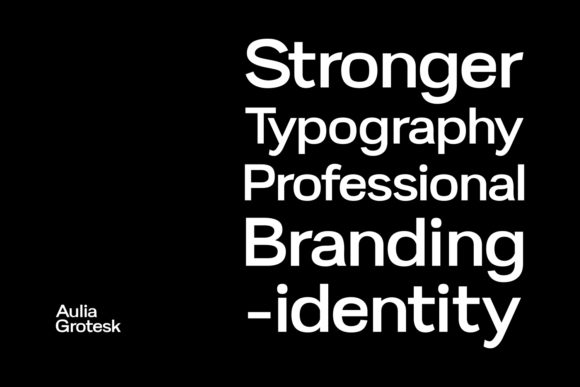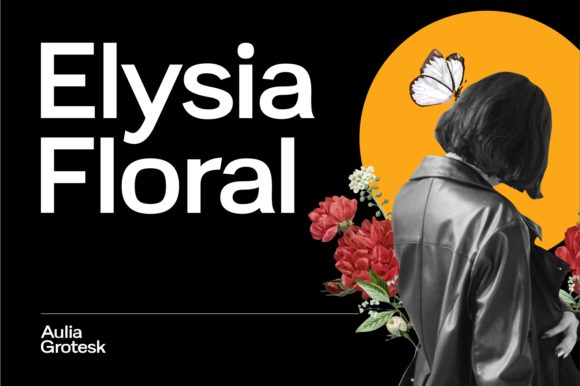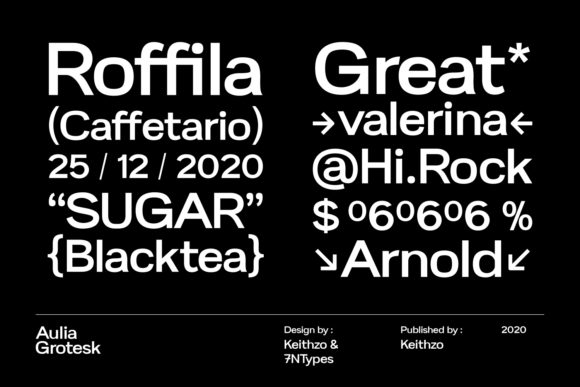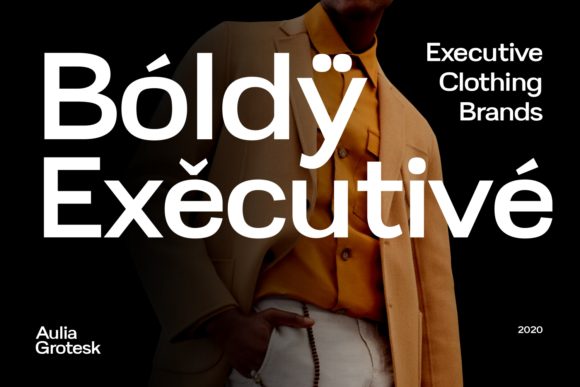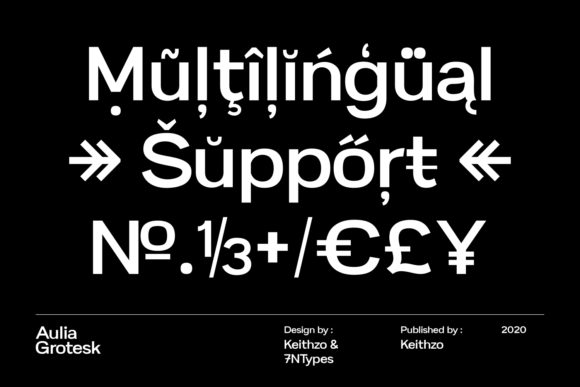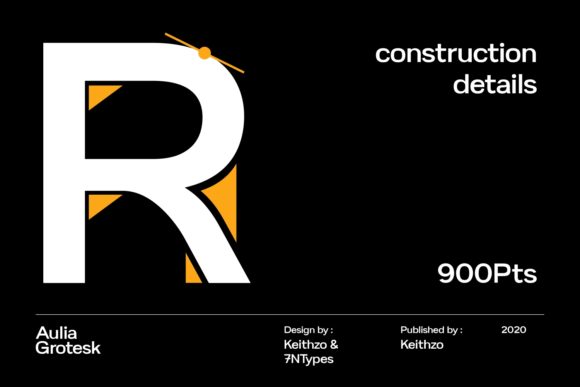
Discover the Power of Aulia Grotesk Font
Have you ever been working on a project and suddenly, the right font comes along and elevates everything to the next level? That’s exactly what happens when you add Aulia Grotesk Font to your design arsenal. This bold and authentic sans serif font is more than just a typography choice – it’s a game-changer.
Aulia Grotesk Font is designed to be versatile, making it perfect for any project, whether it’s a modern logo, a headline-grabbing poster, or a sleek digital interface. Its unique blend of modern and classic elements gives it a timeless quality that’s sure to make your creations stand out. As a valuable addition to your fonts library, Aulia Grotesk Font has the potential to take your designs to new heights.
- Unique Characteristics: Geometric sans-serif design, optimized for digital use, features a unique blend of modern and vintage elements
Aulia Grotesk Font Review
Overall, I was really impressed with Aulia Grotesk Font. It’s a modern sans-serif font that works well for digital and print media ✨. The clean lines and geometric shapes give it a sleek, futuristic feel that’s perfect for tech and innovation-related projects. The font is also highly customizable, with a wide range of weight options and styles to choose from.
One of the things I liked most about Aulia Grotesk is its legibility. The font is easy to read, even at small sizes, making it perfect for body text and captions ✨. The font also has a high x-height, which makes it suitable for use in languages with longer words.
- ⚠️ Limited language support: While the font works well for English and other Western languages, it may not be as effective for languages with more complex scripts, such as Arabic or Chinese.
- ⚠️ Limited stylistic variations: While the font has a range of weight options, it may not offer as much variation in terms of style and flair.
Overall, I would highly recommend Aulia Grotesk Font for anyone looking for a modern, versatile sans-serif font. While it may have some limitations, it’s a solid choice for a wide range of projects.
Tips for Getting the Most Out of Aulia Grotesk
Aulia Grotesk is a versatile font suitable for various use cases, including:
Headlines and titles
Body text in modern and minimalist designs
Use Aulia Grotesk in combination with other fonts to create a unique and visually appealing design.